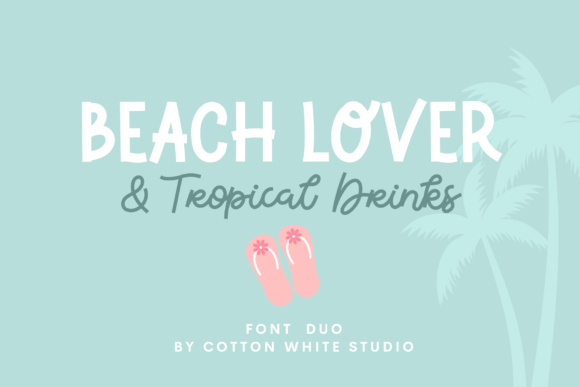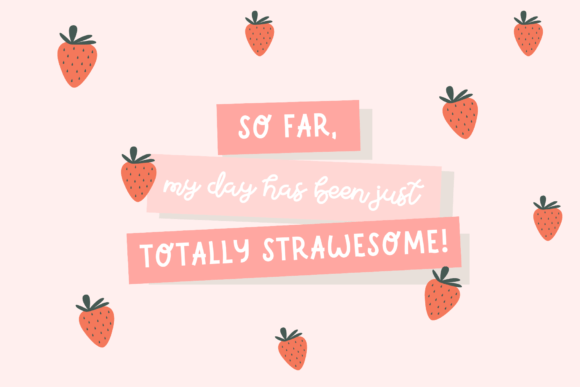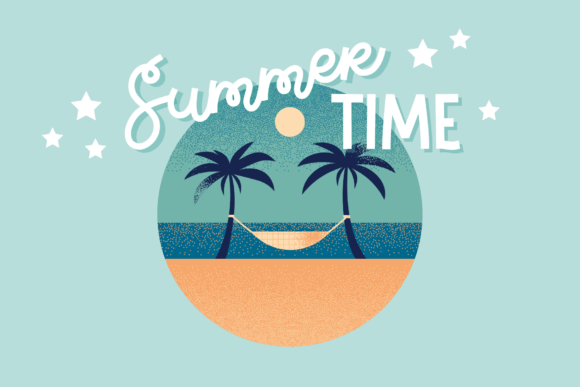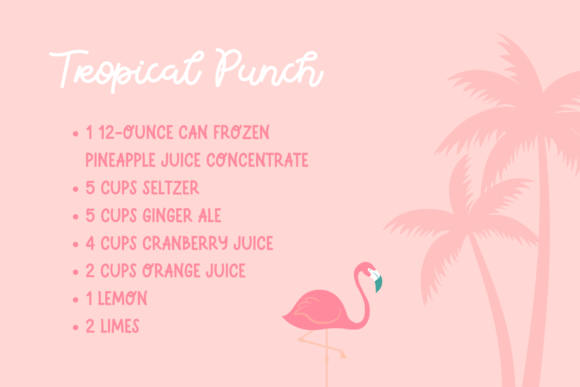
Beach Lover Tropical Drinks Duo Font
About the Beach Lover Tropical Drinks Duo Font
Welcome to the world of Beach Lover Tropical Drinks Duo Font, a typeface that will inspire your next great project. Add some sweetness to your designs with this cute font duo! It’s perfect for any project that needs a touch of whimsy and charm. From greeting cards and invitations to social media graphics and branding materials, our cute font will bring a playful energy to your work. With its playful curves and delightful details, this font is sure to make your designs stand out. So don’t wait any longer – try our cute font today and add some cuteness to your design projects!
Beach Lover Tropical Drinks Duo Font Usage Examples
Beach Lover Tropical Drinks Duo Font Example